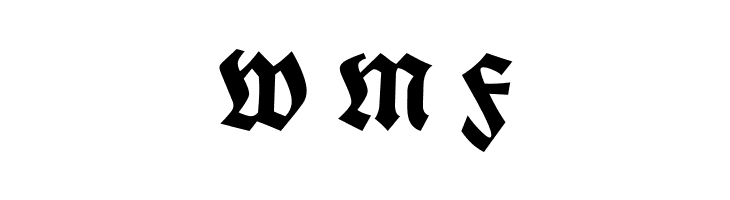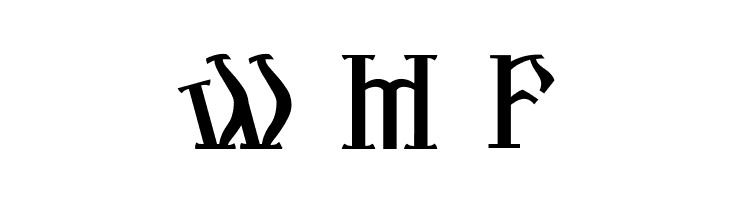
A Gothic-inspired, ornate font with intricate detailing and historical flair.
A bold Blackletter font with angular strokes and intricate detailing.
A bold, ornate blackletter typeface with intricate Gothic styling.
A bold, intricate blackletter font with sharp, angular lines and a historical feel.
A bold, ornate blackletter font with intricate detailing and sharp serifs.
A traditional Blackletter font with intricate detailing and a medieval flair.
A bold, traditional blackletter font with sharp, angular lines and dramatic strokes.
A bold, gothic-inspired font with sharp, angular characters.